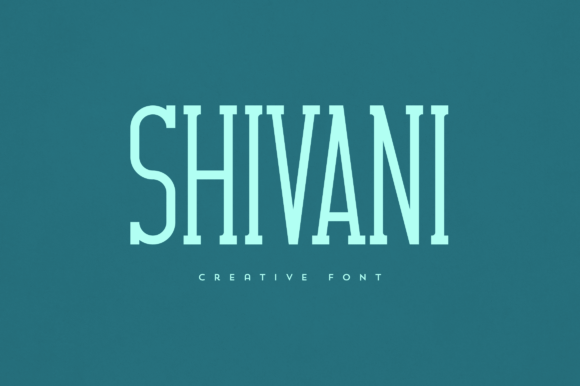
Introducing Shivani Font, an enchanting display font that promises to make your typography a captivating masterpiece. Its graceful curves and elegant lines flow harmoniously, weaving a web of sophistication and uniqueness. With Shivani, every logo, branding project, headline, or simple text is transformed into an artistic expression, leaving a lasting impression on the beholder.
Visualize your designs adorned with this enchanting font, granting them an aura of luxury and creativity. From branding projects that yearn for distinction to homeware designs that seek to exude warmth and charm, Shivani delivers. Let your product packaging speak volumes with a touch of elegance, or grace the headers of your magazine with an air of exclusivity. Shivani's versatility knows no bounds.
Journey into the realm of digital art and design, where Shivani's magic knows no limits. Its versatility shines through, whether you seek a refined text overlay to elevate your background images or yearn for unique and captivating social media posts that demand attention. Shivani is the key to unlocking your creative potential, transforming your designs from ordinary to extraordinary.
Step into the spotlight with Shivani, a font that transcends the boundaries of creativity. Unleash your imagination and craft designs that emanate elegance and charm. Transform your digital creations into works of art, enchanting your audience with every stroke. Shivani Font awaits your touch, ready to bring your vision to life and make an indelible mark on the world of typography.